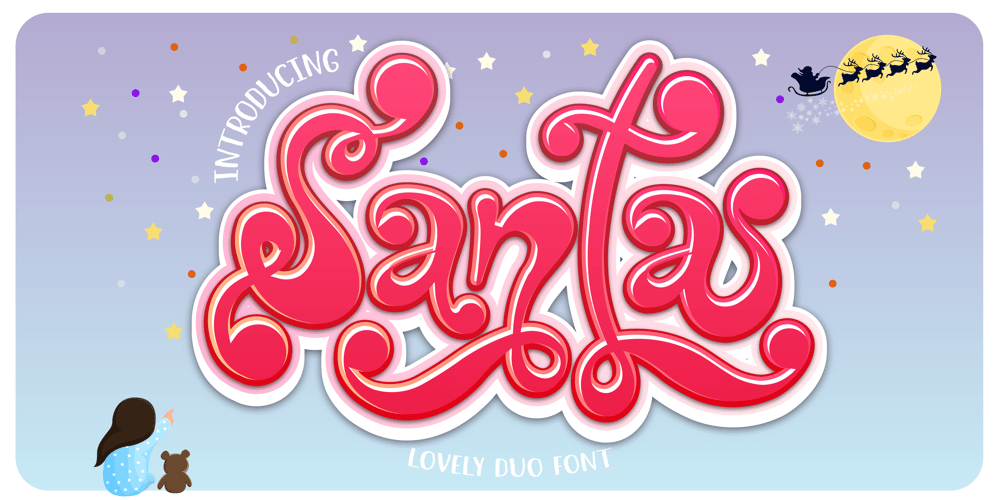
Santa Christmas Font Family was designed by Ake Thanantreesak and published by Ake. Santa Christmas contains 2 styles and family package options. Santa is a lovely duo font (display and script). Together or apart, these fonts are ideal for adding a chic and cheery touch to your crafts. This font is PUA encoded which means you can access all glyphs and swashes with ease!